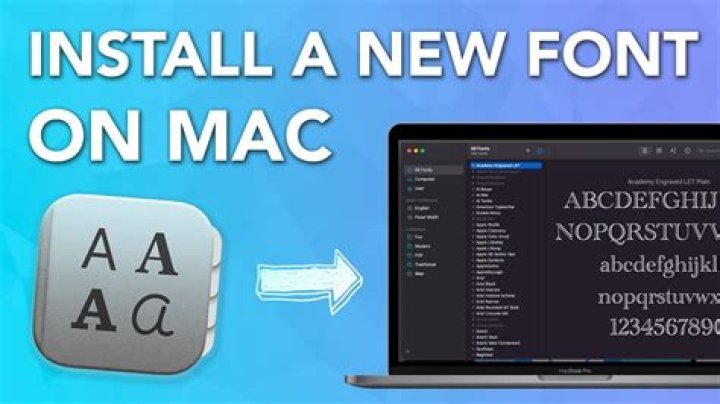
How do you preview font on Mac?
Preview fonts If the preview pane isn’t shown, choose View > Show Preview. In the Font Book app on your Mac, select a font collection in the sidebar to see the fonts in it: All Fonts: Every font associated with the Computer and User collections, as well as additional system fonts available for download.
What font is used in brochures?
Helvetica
Helvetica is generally used sans serif type that is easy to read, making it the right choice for brochures. Also, there are plenty of commercial brands that use Helvetica such as Panasonic, Toyota, Harley Davidson and more. In short, Helvetica is one of the most popular typefaces in the world.
How do I change the font in preview?
Right-click on the selected text, and choose Set Font from the right-click menu. Within the Font Chooser dialog box, make your selections using the available radio buttons, check boxes, and drop-down menus. Click Ok when you have finished making your selections. The document will now reflect the font changes.
How do you get different fonts?
The most graceful way to identify a font in the wild is with the free WhatTheFont Mobile app. Just launch the app and then snap a photo of the text wherever it appears—on paper, signage, walls, a book, and so on. The app prompts you to crop the photo to the text and then identify each character.
How do I change font on Mac?
Change the font or font size
1. Select the text you want to change.
2. In the Format sidebar, click the Style button near the top.
3. Click the Font pop-up menu, then choose a font.
4. Click the small arrows to the right of the font size to make the font larger or smaller.
What is the most common font?
Helvetica remains the world’s most popular font.